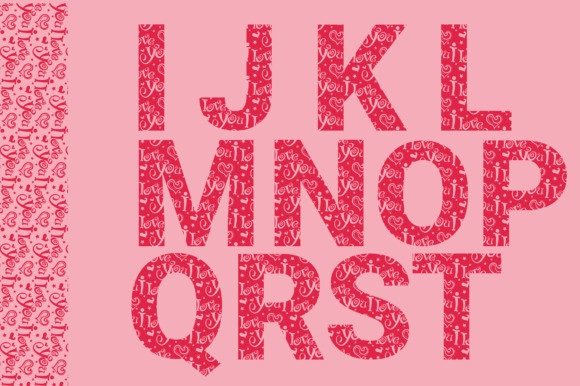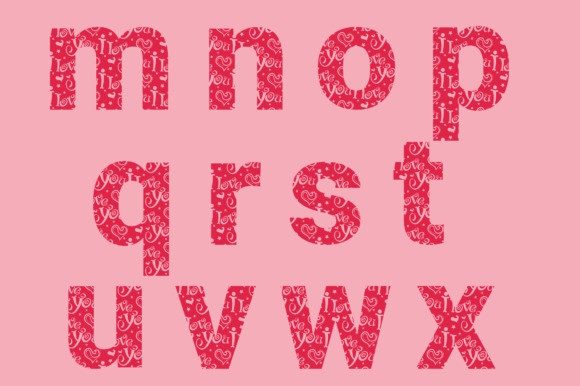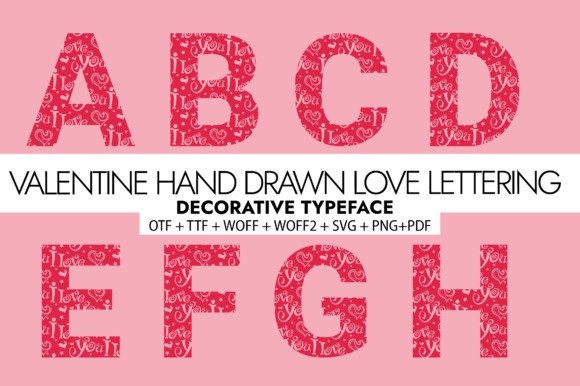
VALENTINE ‘S DAY 2.0 FONT
Valentine’s Day 2.0 Font is a cute and useful decorative font masterfully crafted to help you make stunning designs. Add it to any of your creative projects, and notice how it makes them stand out!